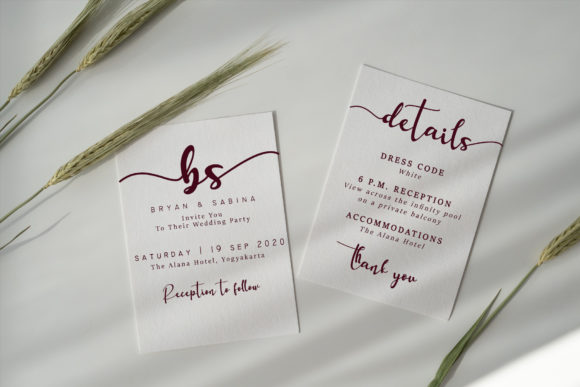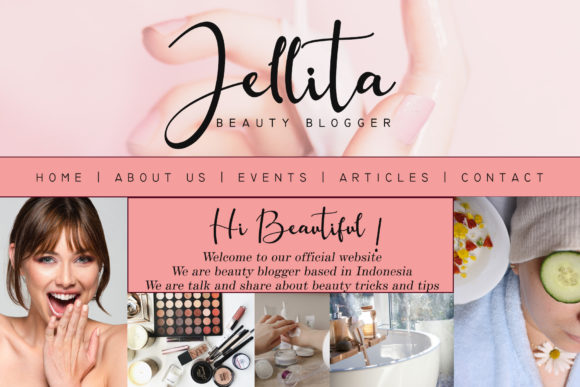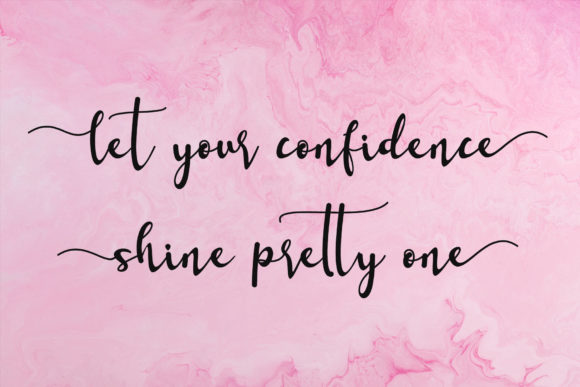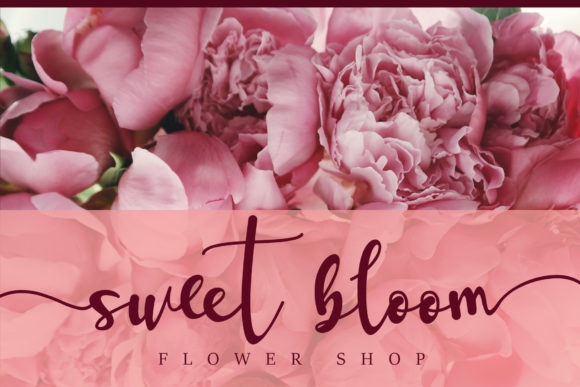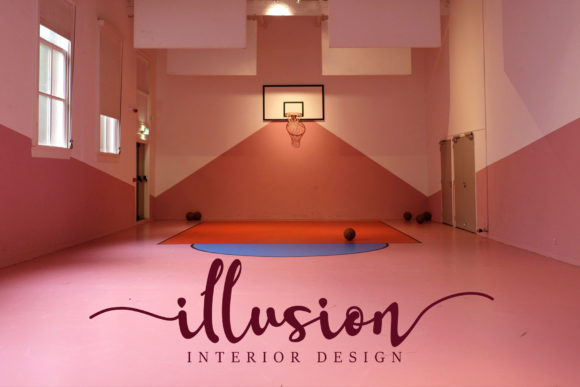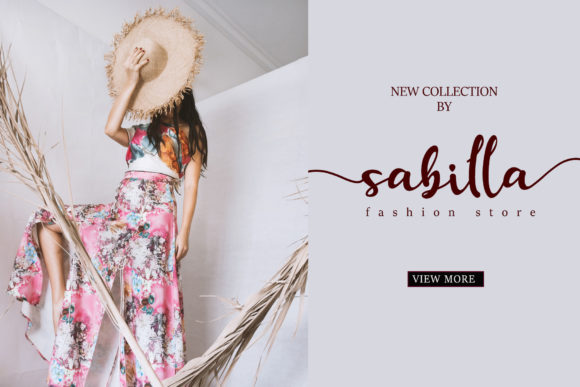
Introduction to Lovellia Font
Have you ever stumbled upon a beautiful handwritten note in a loved one’s handwriting, only to find yourself scribbling down the words in a journal, desperate to capture the essence of the moment? This is exactly what Lovellia Font embodies – a high-quality, modern handwritten font that adds a touch of elegance to any design project. Whether you’re working on a wedding invitation or a quote for a social media post, Lovellia Font is the perfect design resource to elevate your creative project.
As a designer, you understand the importance of choosing the right font for your project. With Lovellia Font, you’ll have access to a wide range of glyphs and swashes, all easily accessible due to its PUA encoding. This means you can create stunning designs with a transparent background, giving your project a unique and eye-catching look.
Key Features of Lovellia Font
- Available in a transparent background format, allowing for seamless integration into various design elements
- Unique, elegant design that adds a touch of sophistication to any creative project
- Perfect for use in digital design, including logos, typography, and other design elements
Honest Review: Lovellia Font
As a designer, I’m always on the lookout for high-quality design resources that can elevate my creative projects. Recently, I had the opportunity to try out the Lovellia Font, and I must say it’s been a great addition to my design arsenal.
What works well about the Lovellia Font is its elegant and refined aesthetic. The font features a beautiful, cursive script that’s perfect for adding a touch of sophistication to any design. The transparent background makes it easy to layer and combine with other design elements, giving you endless possibilities for creative expression.
- ✨ High-quality design with a beautiful, cursive script
- ✨ Transparent background for easy layering and combination
However, there are a few limitations to consider. The font may not be suitable for all types of projects, particularly those that require a more modern or bold aesthetic. Additionally, some users may find the font to be a bit too delicate for certain applications.
Overall, I’m impressed with the Lovellia Font and would definitely recommend it to designers who are looking for a high-quality, elegant font for their creative projects. With its free download and transparent background, it’s a great resource to have in your design toolkit.
Even if you’re not a professional designer, Lovellia Font is still a great choice for presentations and documents. Its clean and modern look makes it perfect for business projects, while its transparent background allows for easy layering and customization.
Experiment with different font sizes and colors to create a unique visual identity. Combine Lovellia Font with other design elements, such as graphics and images, to create a cohesive design. Don’t be afraid to push the boundaries of traditional typography and try something new and creative.
Lovellia Font is perfect for a wide range of creative projects, including business cards, brochures, and presentations. It’s also great for personal projects, such as blog posts and social media graphics. With its versatility and high quality, Lovellia Font is a valuable addition to any design toolkit.
The Lovellia Font is a vector font, which means it can be scaled up or down without losing quality. However, please note that modifying or customizing the font may require advanced design skills and software knowledge. If you’re not comfortable with font editing, it’s recommended to use the font as is or seek the help of a professional designer.